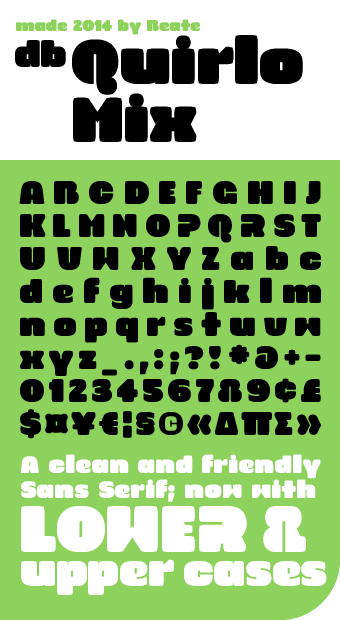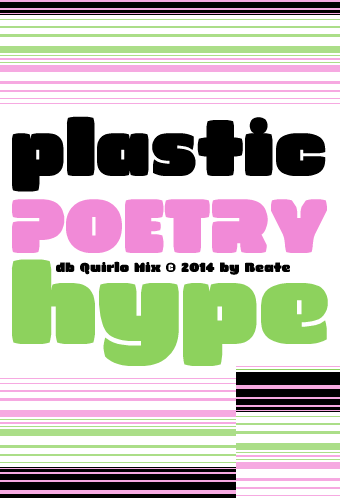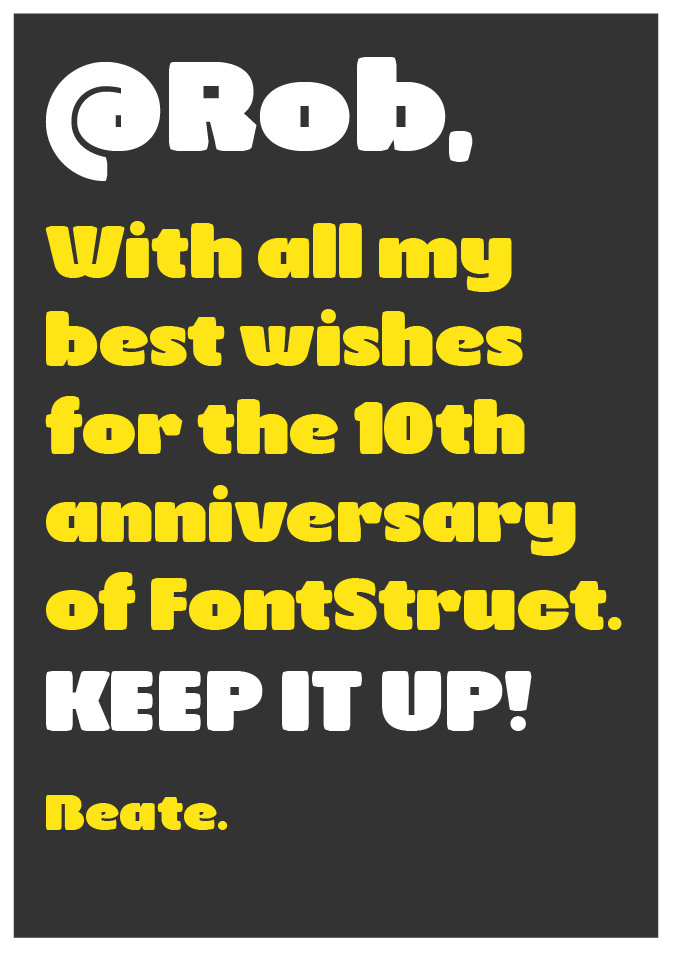
awseome. just awesome.100/10
Super fast! Could you make the t (crossbar) and r (overshoot) different?
Nice work, I love it ! It makes me think about Antique Olive Nord, although it is very different... highly creative !
Nice lower case. It looks every bit professional. 10/10
What a great addition to an already brilliant font.
it's a vector font !!
great design as well
love this font
Well deserved TP and a very original, consistent and useable typeface. I wonder if you could make something like this without faux curves. Not the same of course... But I'll give it a try if I may.
Concerning the r and the t (j4s13's comment). Leave the r as it is, it's perfect. The t could maybe design in the fashion of the f, if you know what I mean.
Otherwise, this one is - as usual - perfect.
Amazing. 10/10
Congratulations, the lower case is a beautifully crafted and very fitting addition to what already was a magical font. I enjoy looking at it in close-up very much. A few minor details: there seem to be a few stray bricks on the left of S,$ and 9. Does & need rounded corners?
Thank you for the "&". I've overlooked. But at $, S and 9 no free-flying particles are traveling : )
Beautiful. Nice work. 10/10 & fav.
Another wonderful top-level font, by any standards! I cannot get over the B, Q and S. It looks to me like a mix of your fonts db Karton and db Drops.